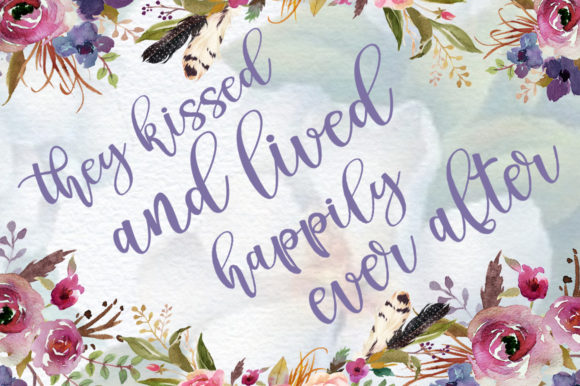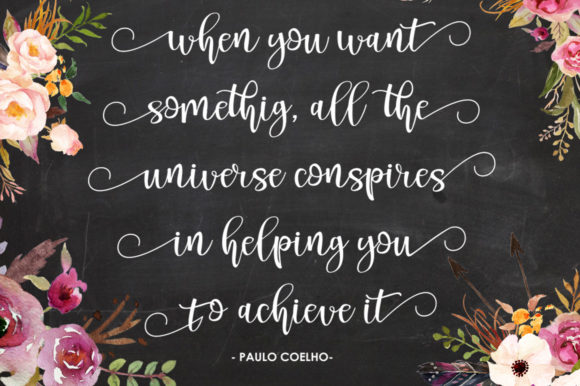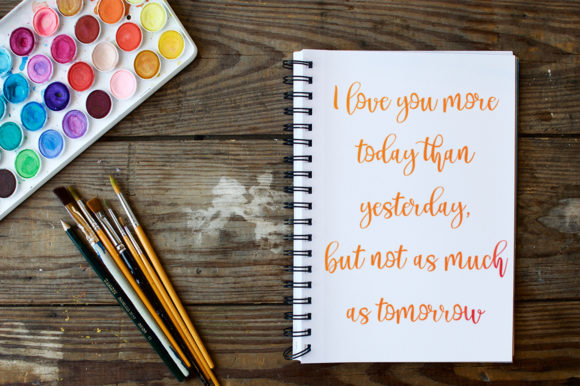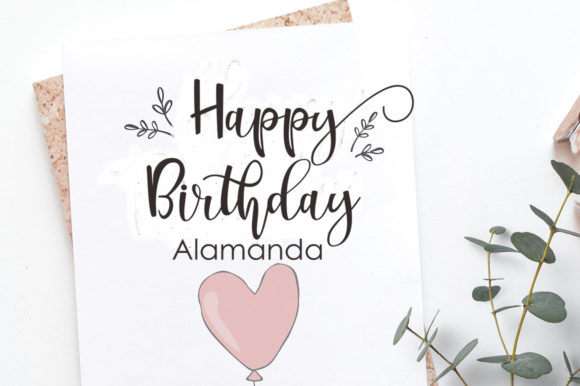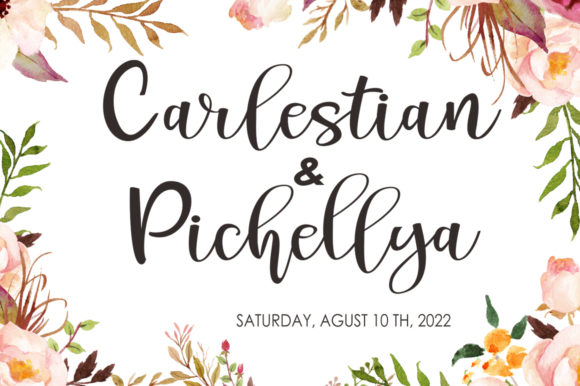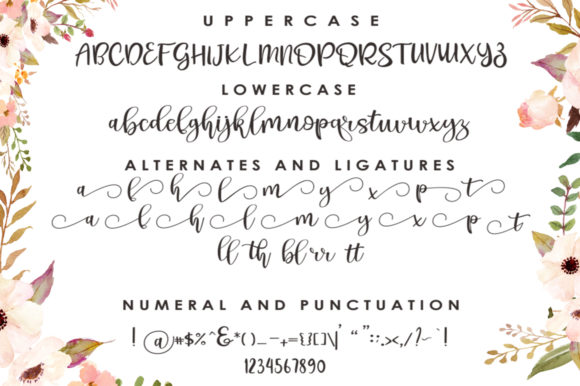
Introduction to Pichellya Script Font
Have you ever stumbled upon a beautiful, hand-painted quote on a watercolor background, and felt instantly inspired to create something similar? I know I have! For designers, there’s no shortage of creative moments like these that spark new ideas and fuel our passion for our craft. And when it comes to adding a personal touch to our projects, the right font can make all the difference.
Enter the Pichellya Script Font, a stunning modern script font that’s perfect for a wide range of creative projects. With its unique, hand-drawn style and irregular baseline, this font is sure to add a touch of elegance and sophistication to any design. And the best part? It’s available for free download, making it an invaluable resource for designers of all levels.
Whether you’re working on a high-quality blog header, a branding project, or a handmade quote, the Pichellya Script Font is an essential design resource that’s sure to elevate your work to the next level. So why settle for a generic font when you can add a touch of personality and whimsy to your designs with the Pichellya Script Font?
Key Features of Pichellya Script Font
- High-quality design suitable for creative projects, including invitations, posters, and social media graphics.
- Supports various languages, including English, Spanish, French, and many more, making it a versatile design tool.
- Features a unique, handwritten script style that adds a personal touch to any design project.
Honest Review: Pichellya Script Font
I recently came across the Pichellya Script Font, and I must say it’s a great addition to any designer’s arsenal. As a free download, it’s a fantastic resource for any creative project that requires a touch of elegance.
- ✨ High-quality design: The Pichellya Script Font is beautifully crafted, with intricate details that make it perfect for titles, headings, and other design elements.
- ✨ Transparent background: The font’s transparent background makes it easy to combine with other design elements, allowing for a seamless and professional look.
- ⚠️ Limited font styles: While the Pichellya Script Font is beautiful, it’s only available in a single style, which may limit its versatility in certain design projects.
- ⚠️ Limited language support: As a script font, it may not be suitable for projects that require support for non-Latin scripts.
Overall, I’m impressed with the Pichellya Script Font. Its high quality and elegant design make it a great resource for any designer working on a creative project. While it may have some limitations, it’s still a fantastic addition to any design library.
Tips for Getting the Most Out of Pichellya Script Font
To get the most out of the Pichellya Script Font, use it sparingly and in creative ways. Combine it with other fonts to create a unique and eye-catching design. You can also use it to add a touch of elegance to your branding or marketing materials.
The Pichellya Script Font is commonly used for wedding invitations, birthday party decorations, and other creative projects that require a high quality, elegant font. You can also use it to create custom signage or add a touch of personality to your social media graphics.